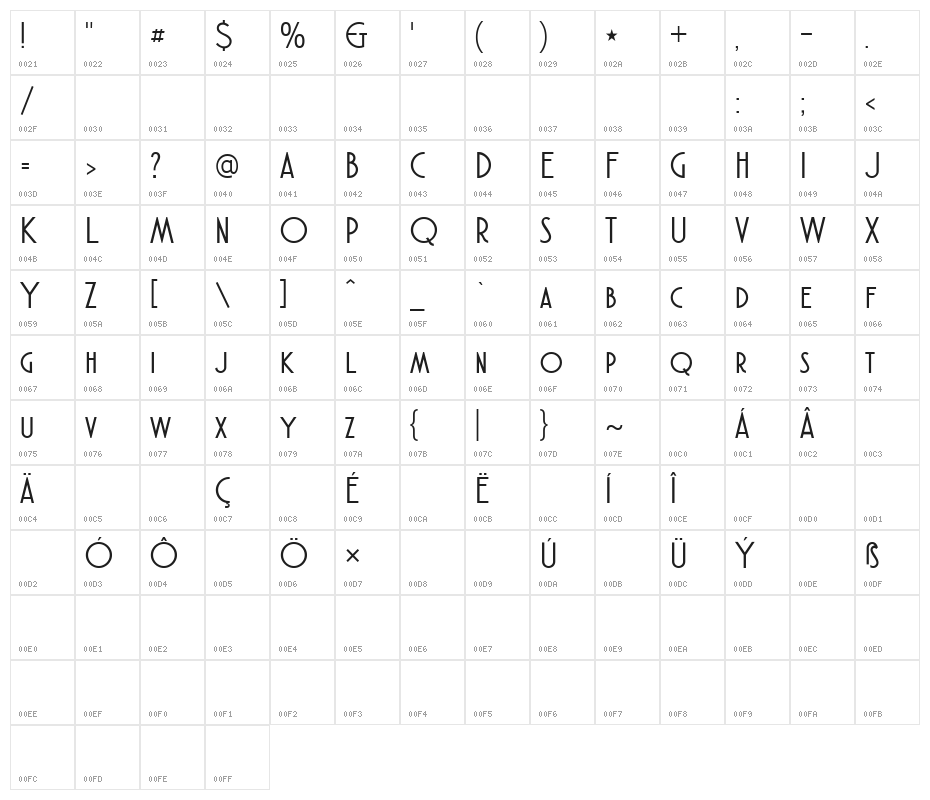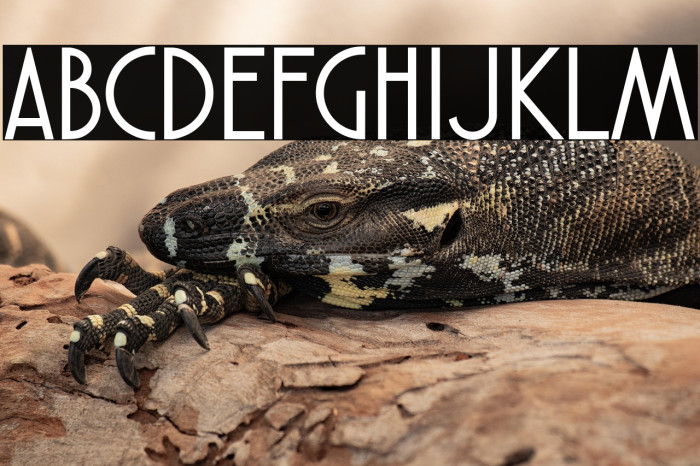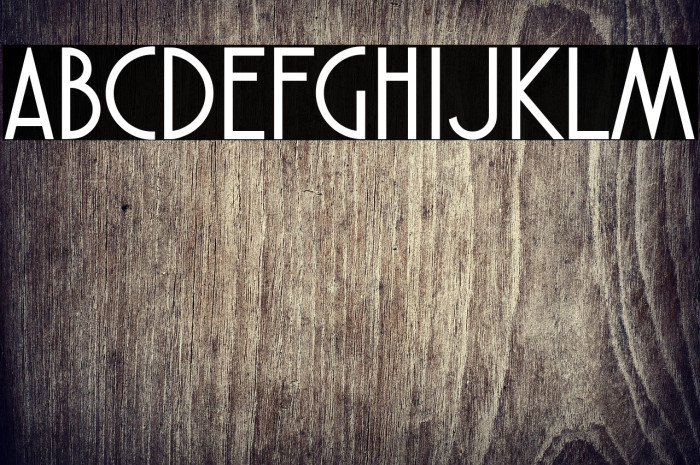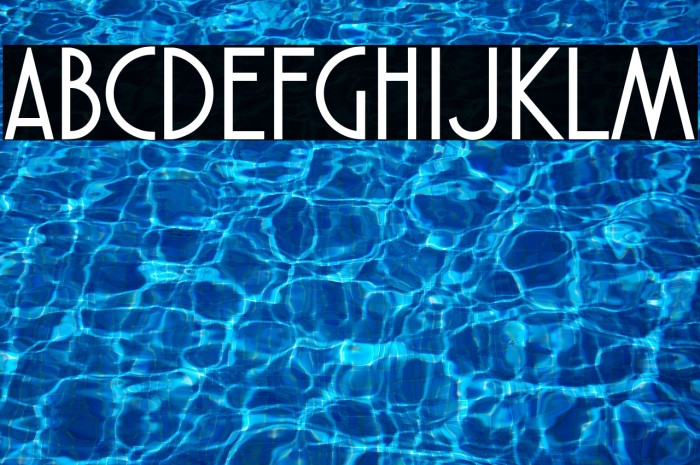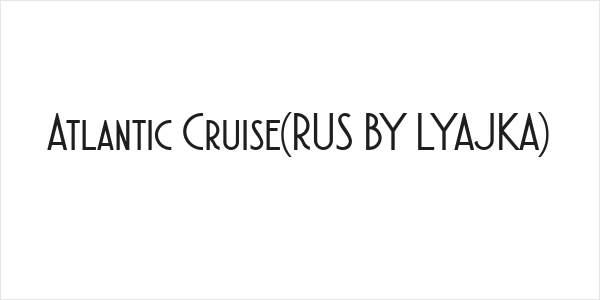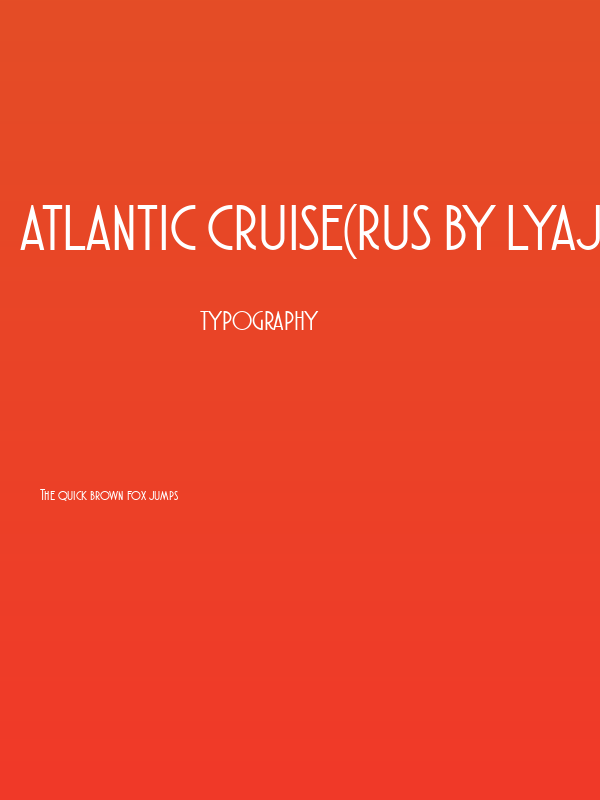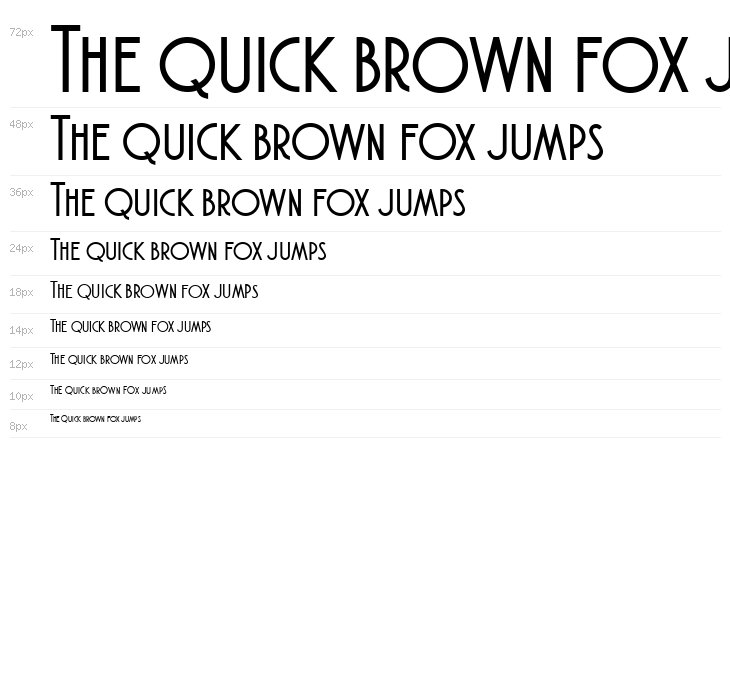
Atlantic Cruise(RUS BY LYAJKA) Font
Atlantic Cruise(RUS BY LYAJKA) Description
This font exhibits a modern and elegant style with clean, sharp lines and a geometric structure. The characters are tall and slightly condensed, giving a sophisticated and sleek appearance. The uppercase letters are particularly striking, with a uniform height and consistent stroke width. The lowercase letters maintain the same geometric precision, ensuring readability and a cohesive look. The special characters and numbers are designed to match the overall aesthetic, providing a seamless integration with the alphabet. This font is versatile, suitable for both digital and print media, and can be used to create a professional and polished look.